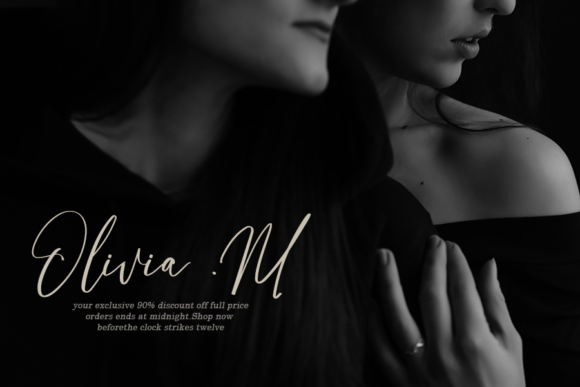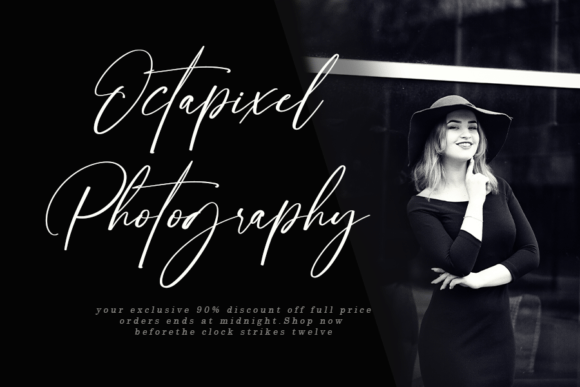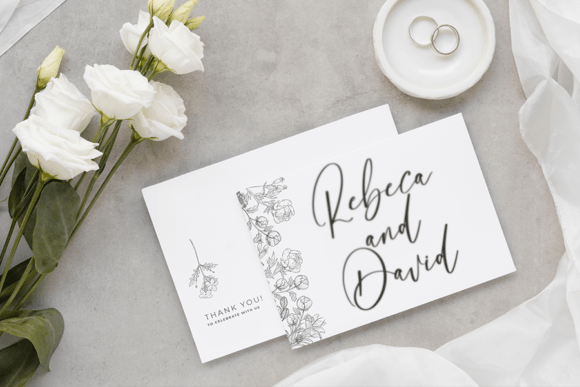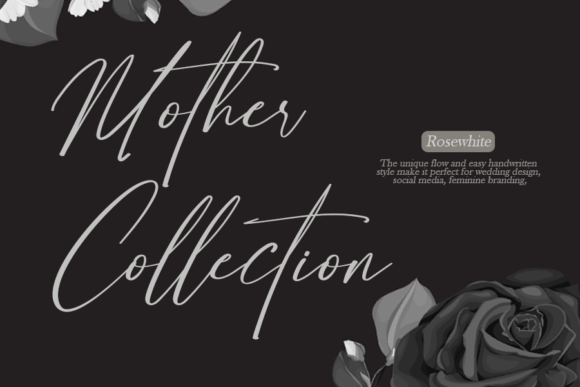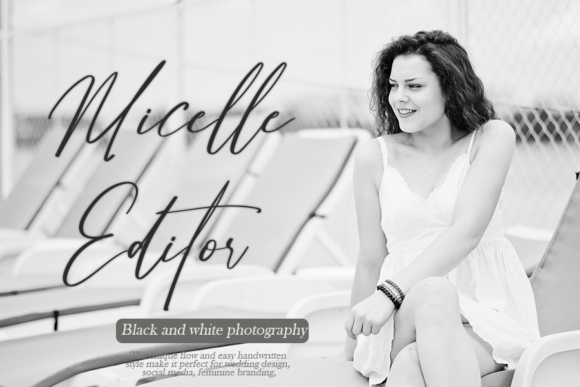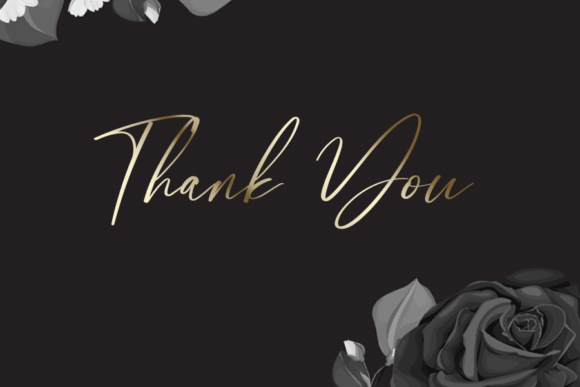
Introduction to Rosewhite Font
Rosewhite is a gorgeous handwritten font that will make your work stand out through its elegant and curvy lines.
It is perfect for product packaging, branding projects, magazine covers, social media posts, weddings, or anything that needs a sweet, handwritten touch .